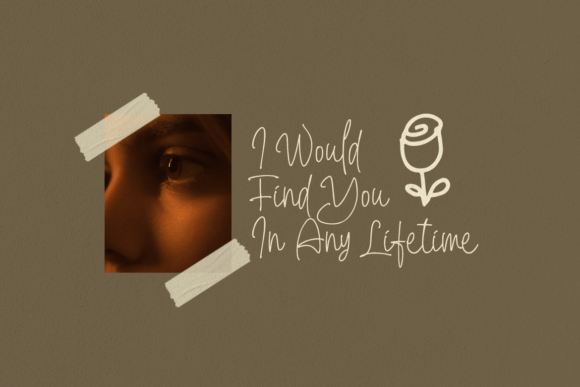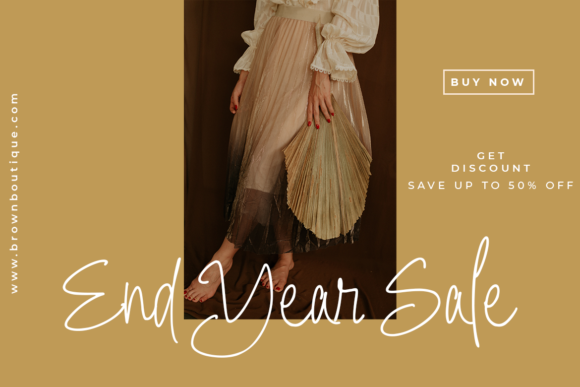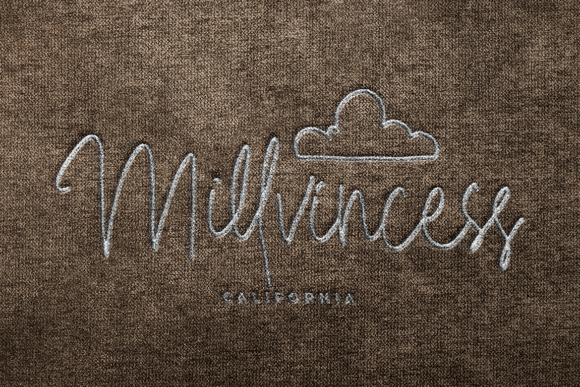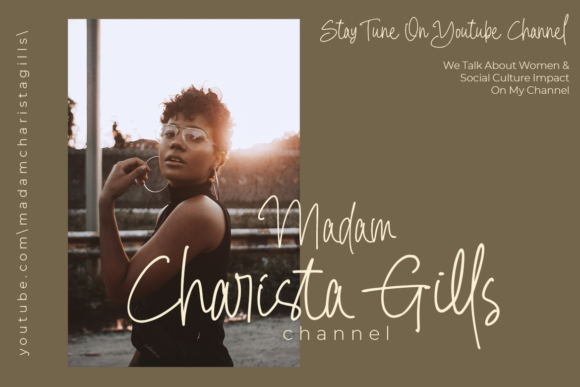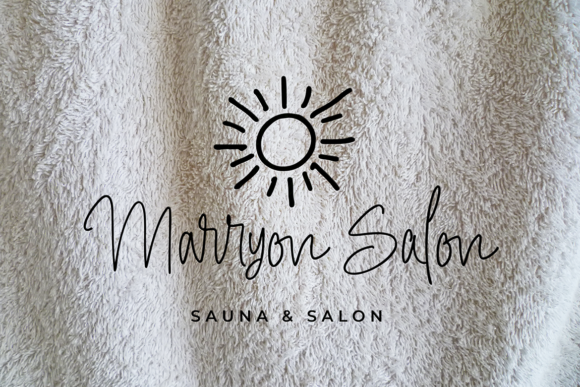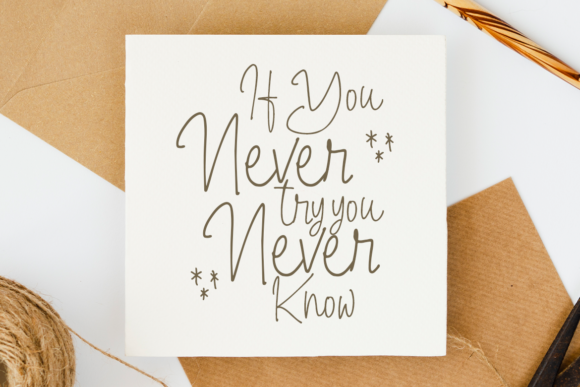
Introducing Gilligan Shine Font: Elevate Your Designs with a Touch of Sophistication
Are you a designer or crafter looking for a font that exudes elegance and romance? Look no further than the Gilligan Shine Font. This beautiful, handwritten font is perfect for adding a sophisticated touch to your designs, whether you’re working on a branding project, crafting a logo, or creating stunning stationery.
A Relaxed and Timeless Design
The Gilligan Shine Font boasts a relaxed and timeless design that is sure to captivate your audience. Its delicate and romantic feel makes it an ideal choice for designers who want to add a touch of whimsy and charm to their work. The font’s classic appeal ensures that it will never go out of style, making it a valuable addition to your font library.
Multilingual Support and PUA Encoding
One of the standout features of the Gilligan Shine Font is its multilingual support. This means that you can use the font to create designs in multiple languages, making it a great choice for global brands or designers who work with international clients. Additionally, the font is PUA encoded, which allows you to access all of the glyphs and swashes with ease. This makes it simple to customize your designs and add unique flourishes that set your work apart.
Ideal for a Variety of Design Projects
The Gilligan Shine Font is versatile and can be used for a wide range of design projects. Here are some ideas to get you started:
- Branding and logos: Use the Gilligan Shine Font to create a custom logo that reflects your brand’s personality and style.
- Stationery and invitations: Add a touch of elegance to your stationery and invitations with this beautiful font.
- Packaging and product design: Use the Gilligan Shine Font to create eye-catching packaging and product designs that stand out on store shelves.
- Web design and development: Add a touch of sophistication to your website with this beautiful font.
Why Choose the Gilligan Shine Font?
There are many fonts available to designers and crafters, but the Gilligan Shine Font stands out for several reasons:
- Unique and elegant design: The Gilligan Shine Font has a distinctive and sophisticated feel that sets it apart from other fonts.
- Multilingual support: This font supports multiple languages, making it a great choice for global brands and designers who work with international clients.
- PUA encoding: The font’s PUA encoding makes it easy to access all of the glyphs and swashes, allowing you to customize your designs with ease.
- Timeless appeal: The Gilligan Shine Font has a classic appeal that ensures it will never go out of style.
The Gilligan Shine Font is a beautiful and sophisticated handwritten font that is perfect for designers and crafters who want to add a touch of elegance to their work. With its multilingual support, PUA encoding, and timeless appeal, this font is sure to become a valuable addition to your font library. Whether you’re working on a branding project, crafting a logo, or creating stunning stationery, the Gilligan Shine Font is an excellent choice.